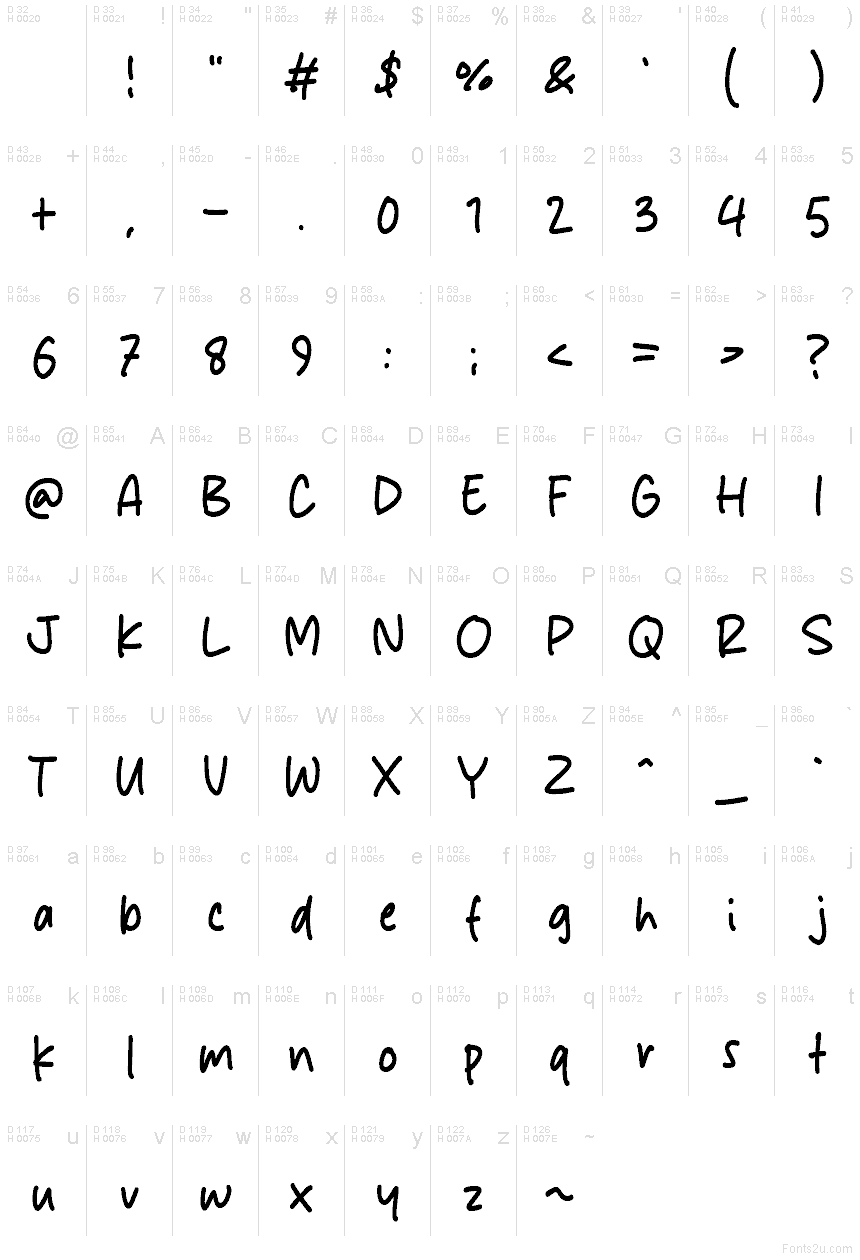
Blink Rush
Blink Rush font by Origin Type uses its handwritten style to convey a relaxed and informal feel. The font has a playful yet slightly chaotic appearance as it skips across the baseline with each character having an expressive personality of its own. Its lines are smooth but erratic, which makes Blink Rush suitable for achieving casual and engaging typography.
The free handwritten font works in contemporary applications oriented toward the creative fields of fashion, design, multimedia, and entertainment. Ideas for usage include marketing material for games or branding, social media content, books and movie covers/titles, greeting cards, invitations to fun or themed events (particularly those targeted at kids), advertisements/packaging of trendy products like toys or clothing.